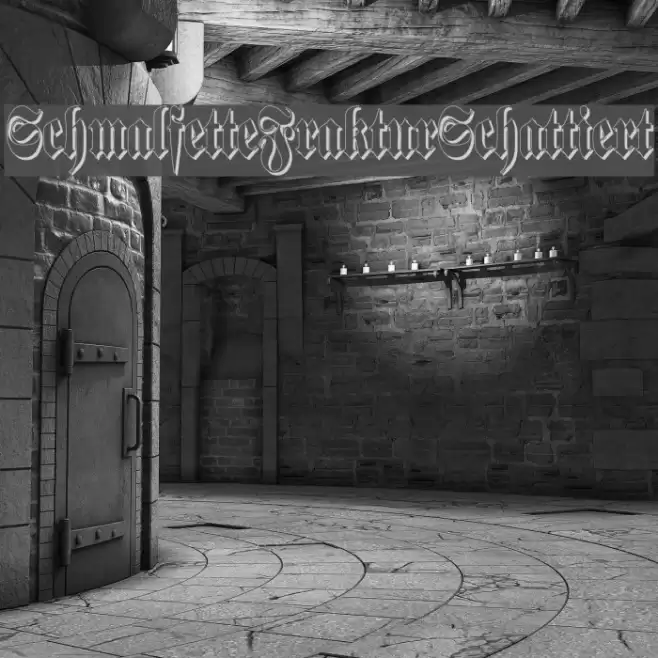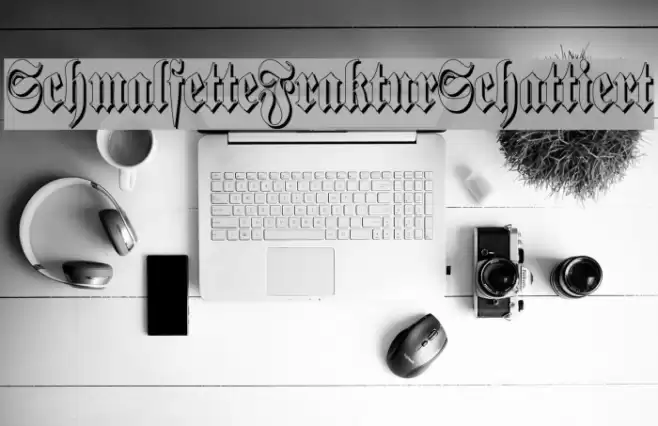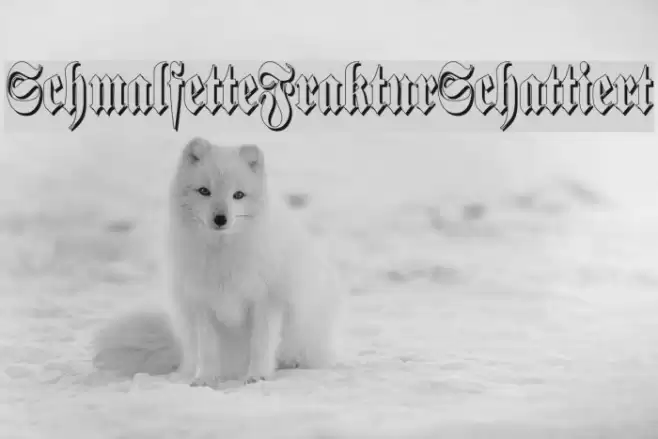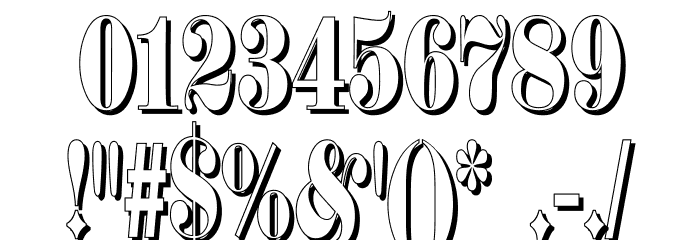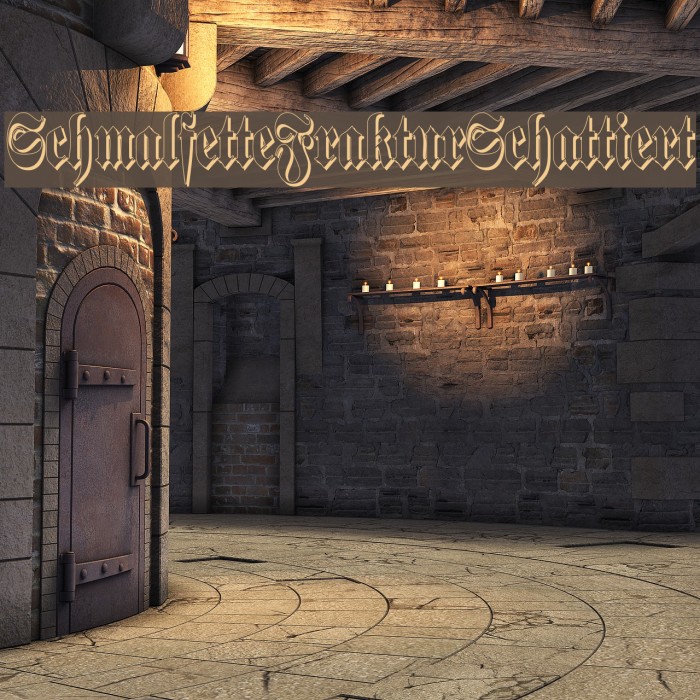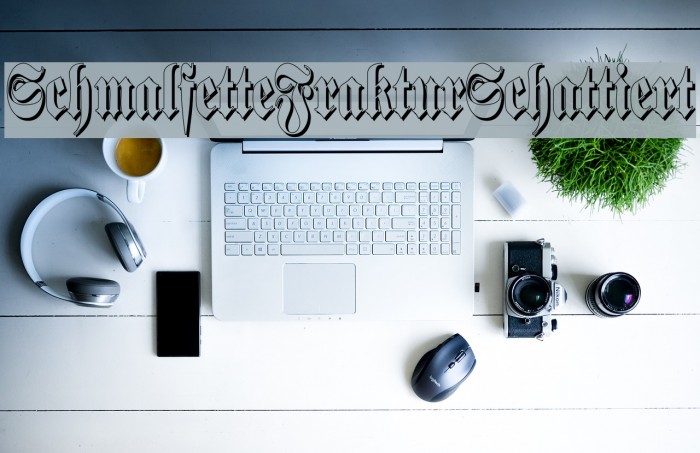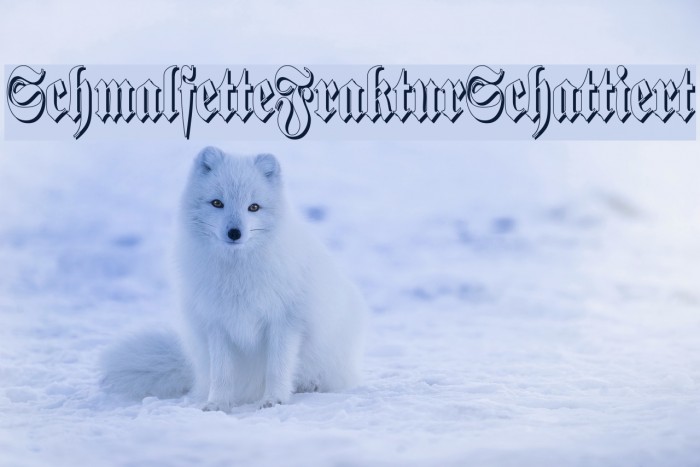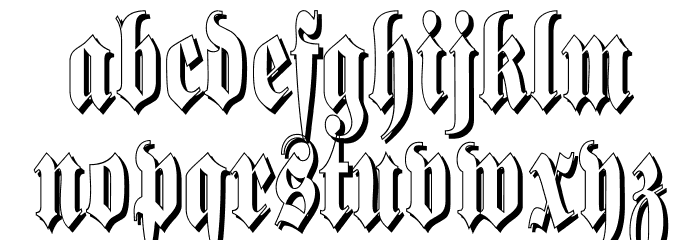
SchmalfetteFrakturSchattiert Font
SchmalfetteFrakturSchattiert Description
This font is a striking example of the Blackletter style, characterized by its bold, angular strokes and intricate detailing. The letters are heavily stylized, with sharp edges and dramatic flourishes that give it a distinct, historical appearance. The shadowing effect adds depth and a three-dimensional quality, enhancing its decorative nature. This font evokes a sense of tradition and formality, reminiscent of medieval manuscripts and old-world craftsmanship. The numerals and special characters maintain the same ornate style, ensuring consistency across all glyphs.
A bold, shadowed Blackletter font with intricate detailing and historical flair from Uncategorized fonts.
- Proposed Projects: Ideal for projects requiring a vintage or medieval aesthetic, such as historical book covers, themed event invitations, or branding for traditional crafts.
- Overall Style: Vintage
- Use Case: Logos, Headlines, Decorative purposes